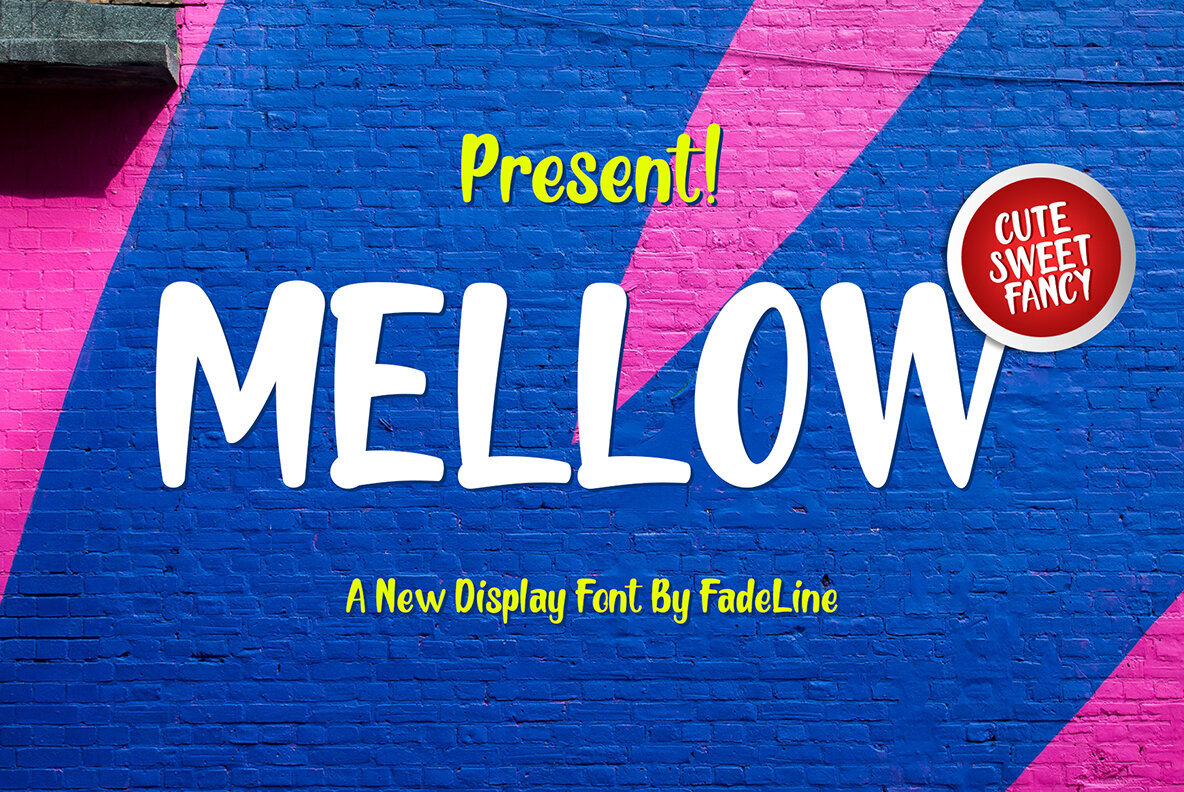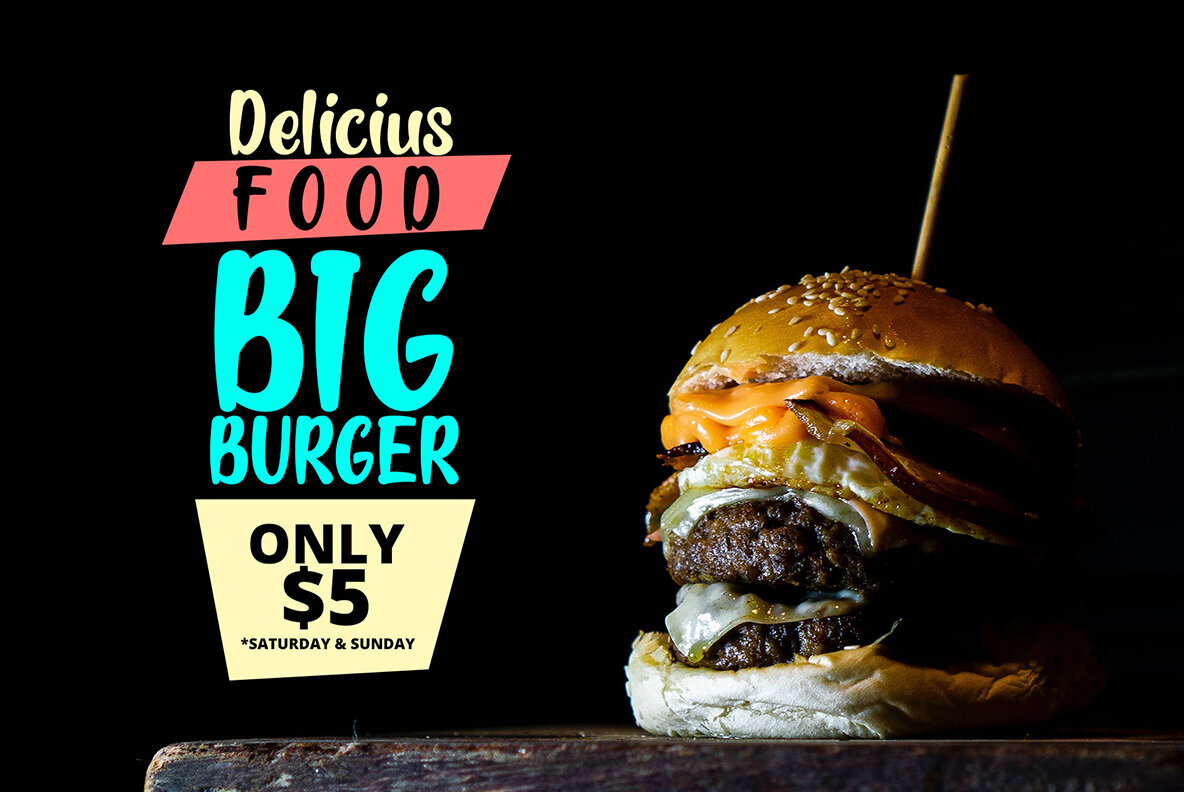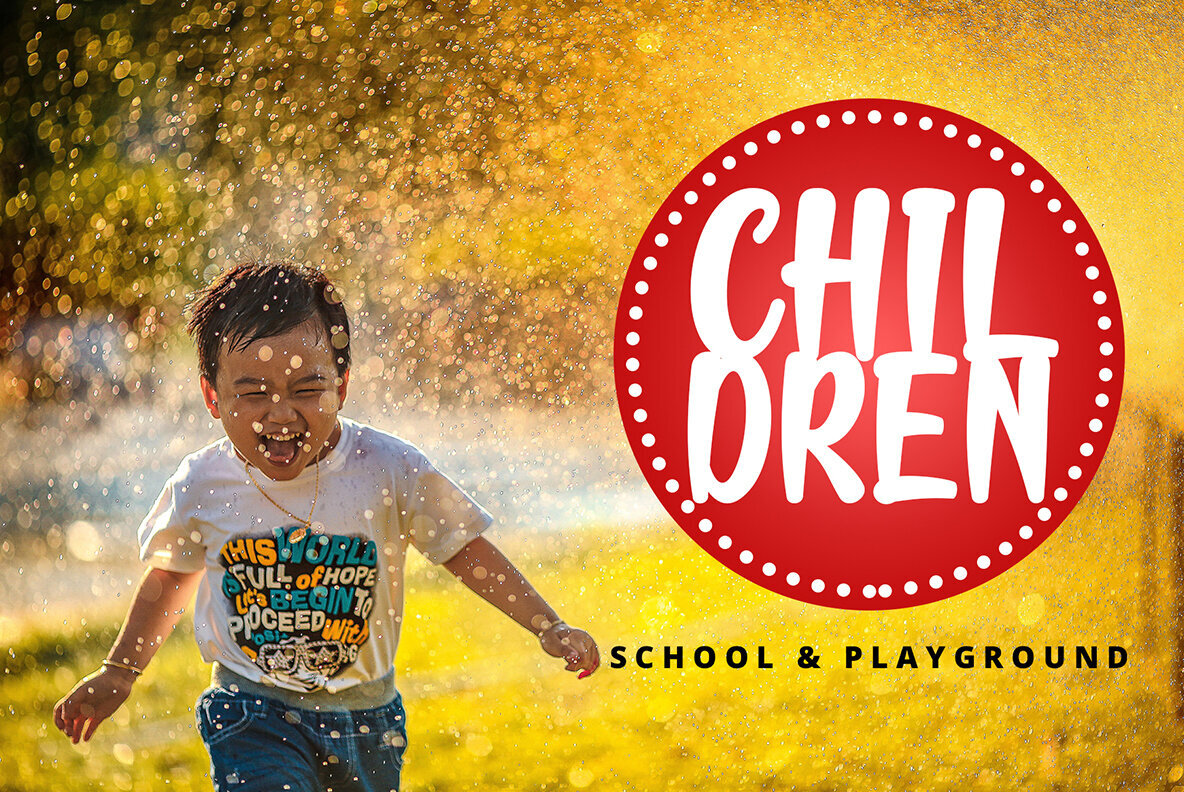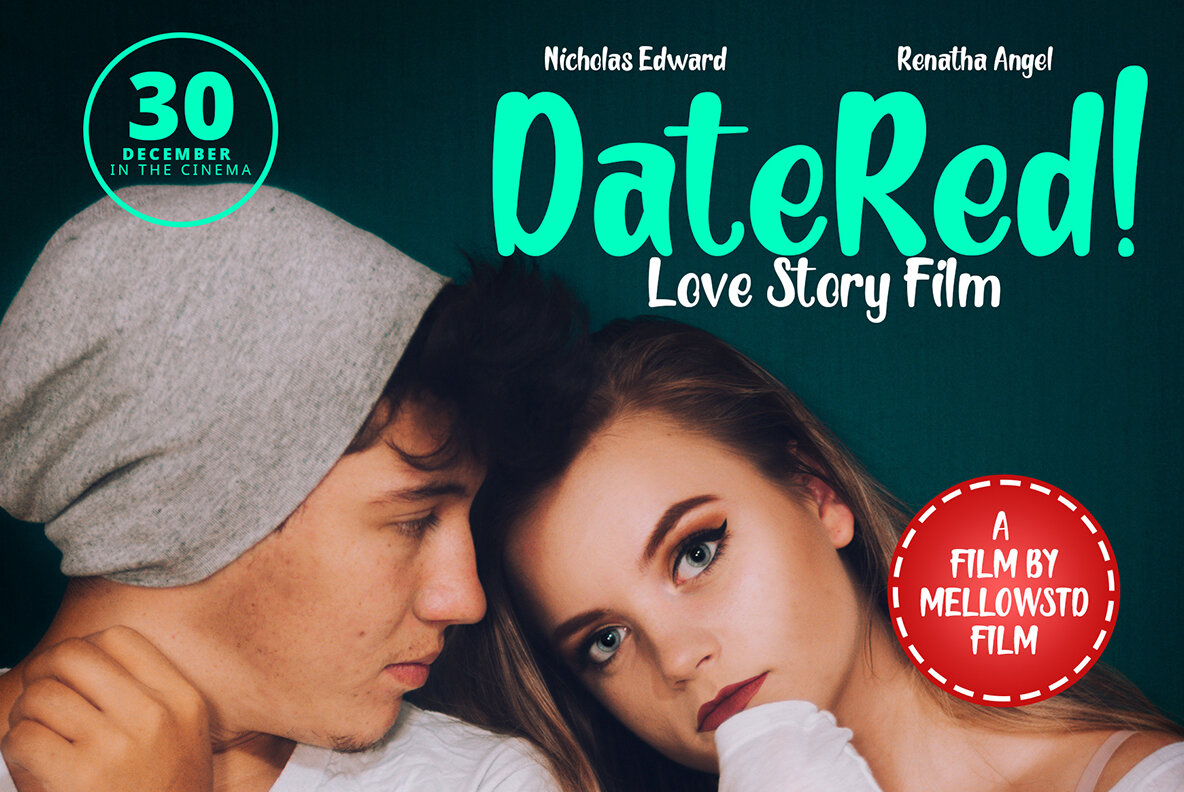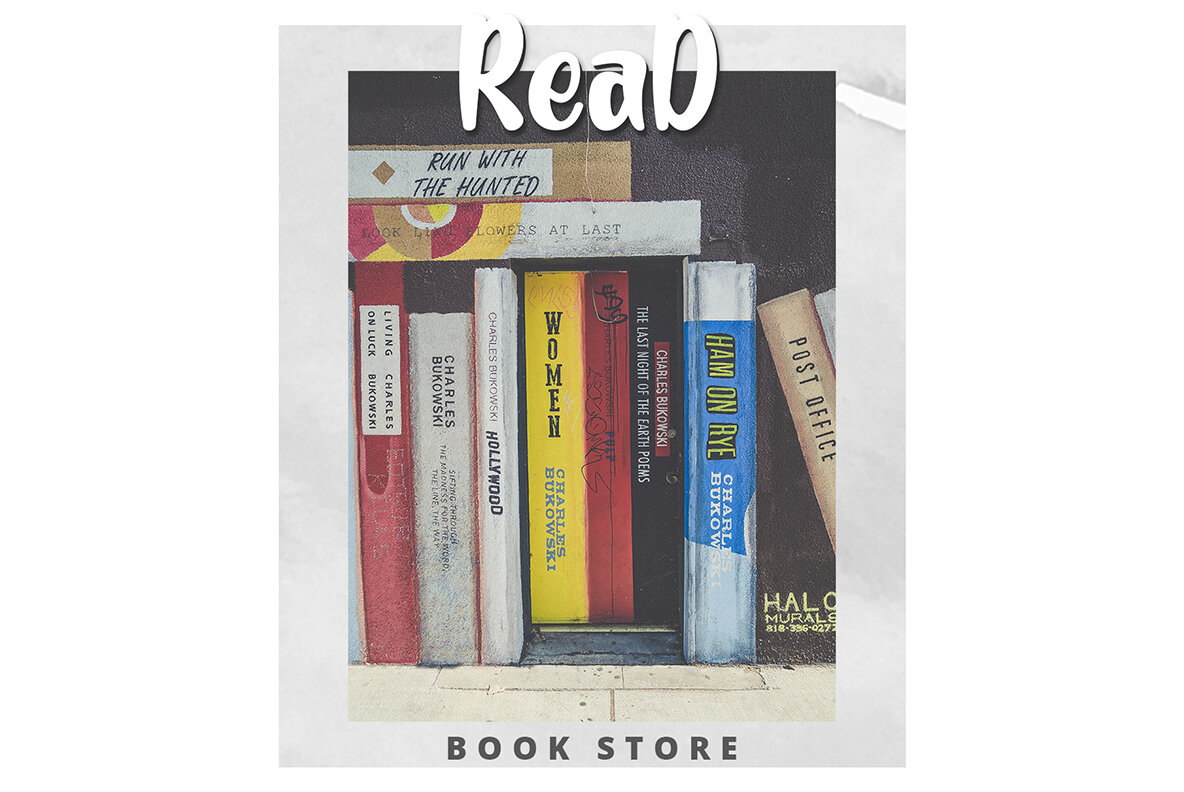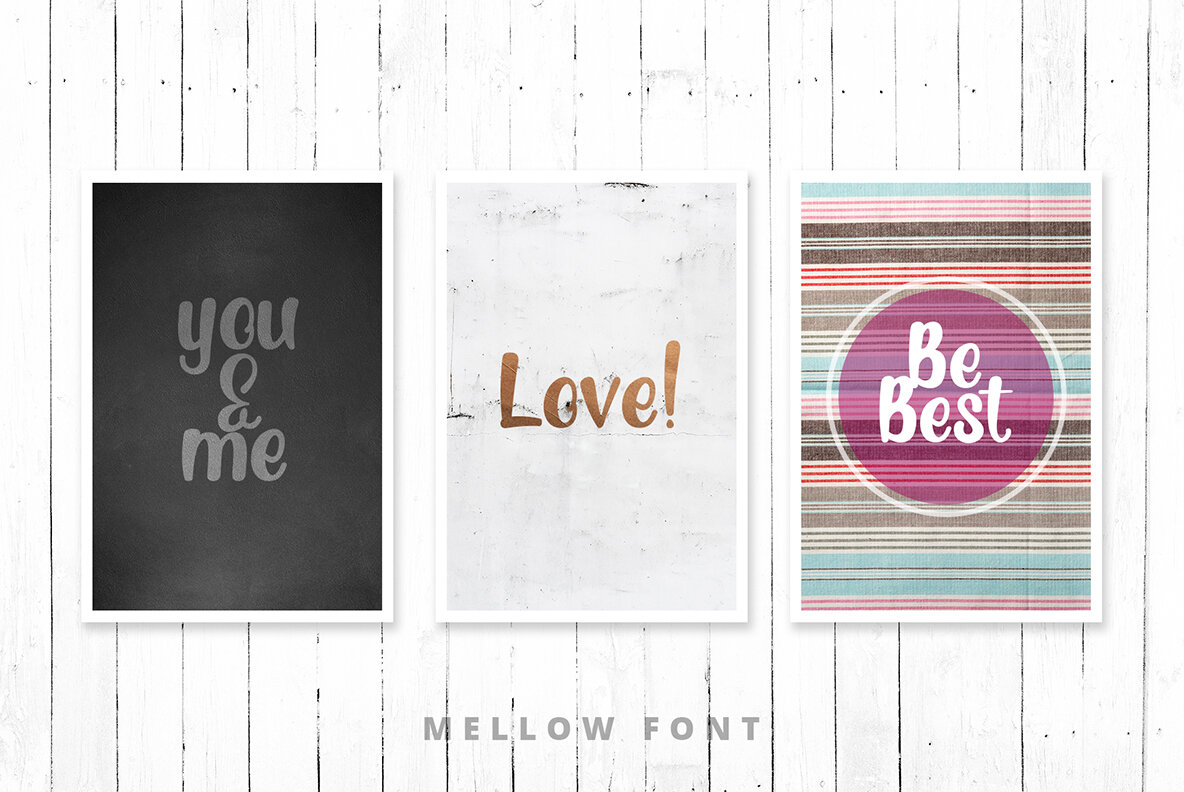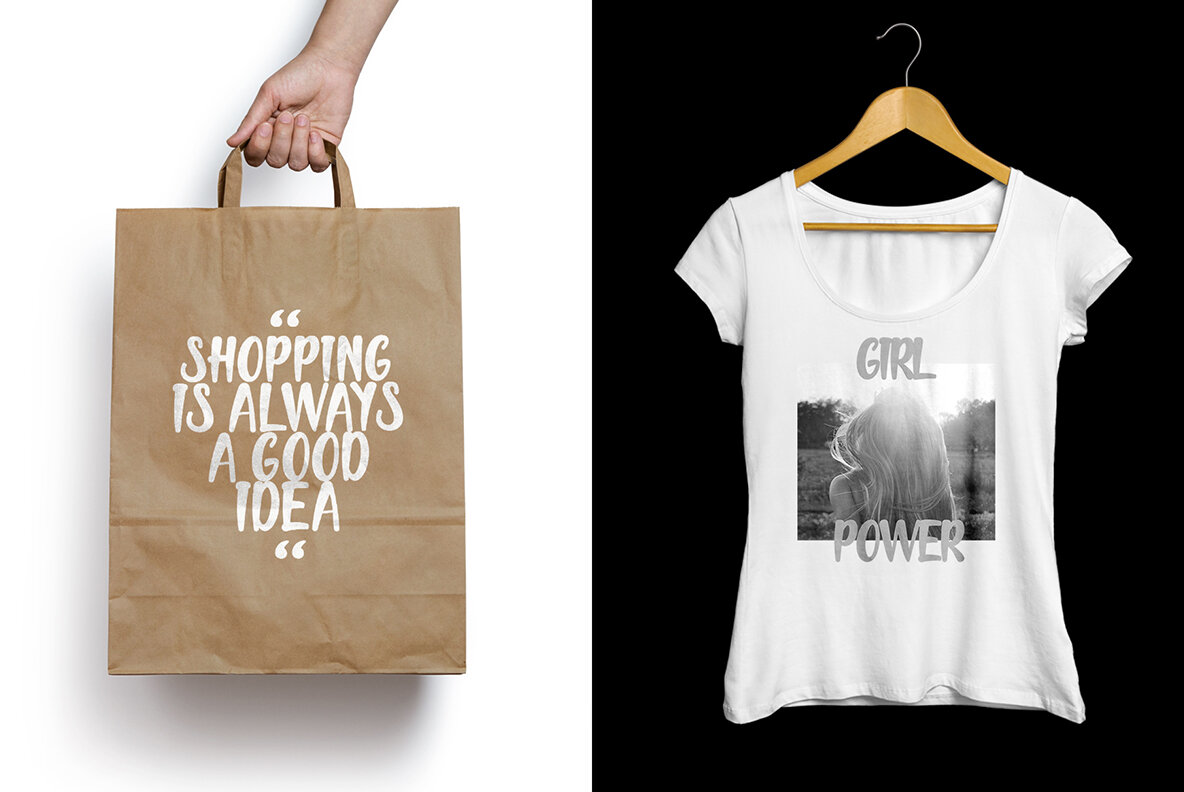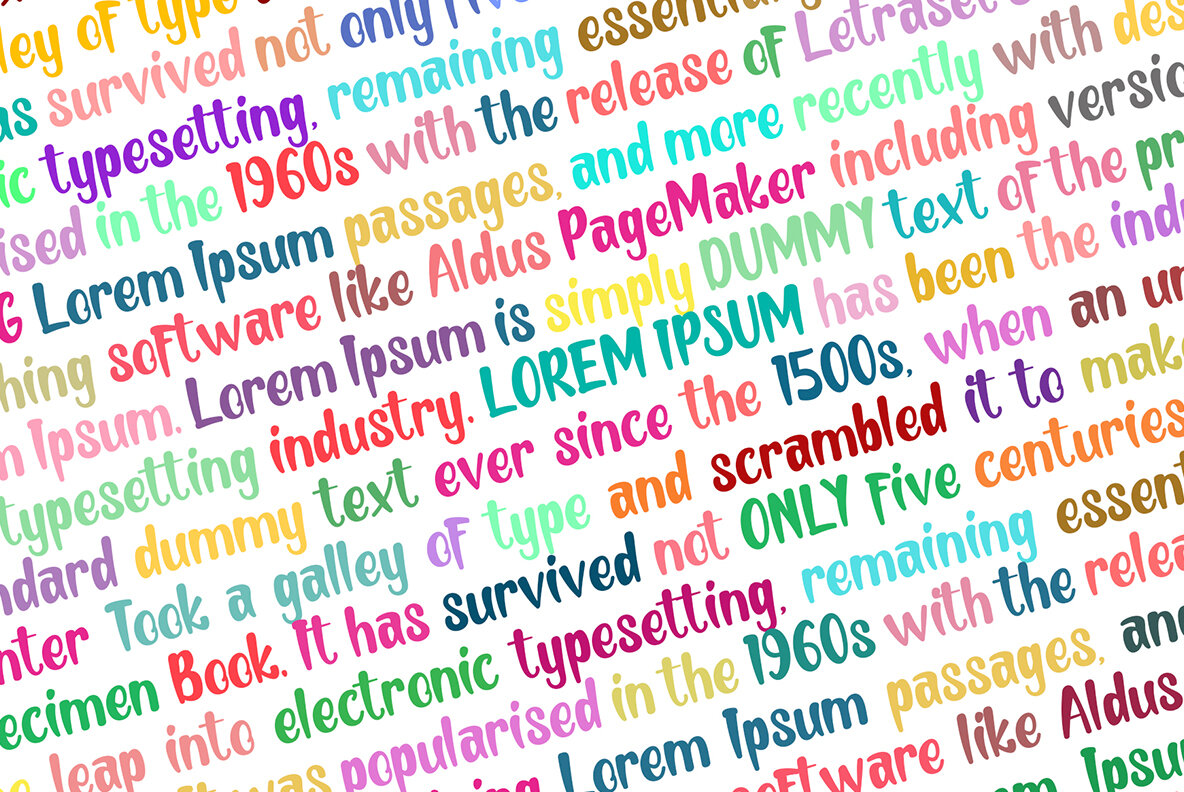
Mellow Font
Mellow
Mellow is a charming and elegant comic typeface that infuses beauty into every design. While its cute and whimsical style is perfect for comic purposes, its versatility extends to posters, shopping bags, headlines, insignia, t-shirts, logos, branding, book covers, birthday invitations, and greeting cards. Mellow shines in retro, vintage, minimalist, and modern design themes, offering endless opportunities to captivate audiences. Pair Mellow with complementary colors to craft compelling messages that resonate with your audience. A must-have for any designer looking to add a touch of playfulness and beauty to their work.Mellow Typeface